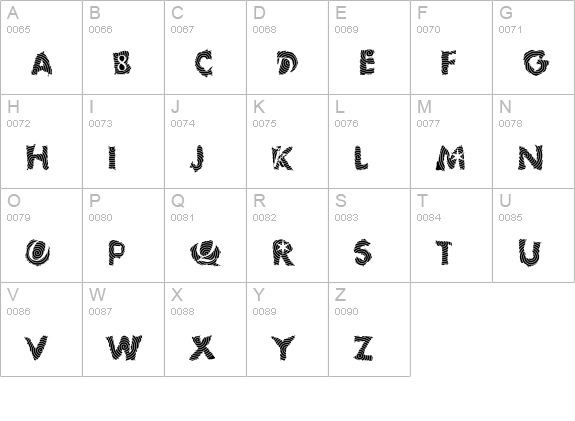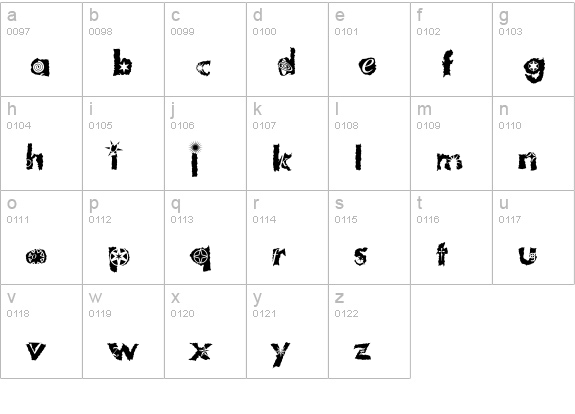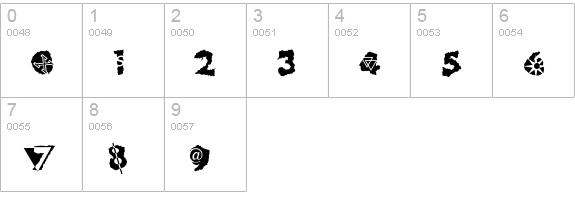
VTTomFool PlumLoco Font Details
Introducing VTTomFool PlumLoco, a whimsical and playful font that will bring a touch of fun to your designs. This font is perfect for adding a light-hearted and quirky element to any project, whether it's a logo, branding, invitation, or social media post. With its unique combination of curved lines and exaggerated proportions, VTTomFool PlumLoco exudes a sense of joy and lightheartedness that is sure to captivate your audience. What makes VTTomFool PlumLoco even more appealing is that it is completely free! Yes, you read that right. This delightful font is freely available to download at FontsMarket.com, allowing you to unleash your creativity without any cost. Say goodbye to expensive font licenses and hello to endless possibilities with VTTomFool PlumLoco. Not only does VTTomFool PlumLoco offer a wide range of uppercase and lowercase characters, but it also includes numerals, punctuation marks, and special symbols, ensuring that you have everything you need to create eye-catching designs. The versatility of this font allows it to seamlessly blend into various themes and styles, from children's illustrations to quirky advertisements. With VTTomFool PlumLoco, you can effortlessly add a touch of whimsy to your projects. Its charming and energetic appearance will instantly grab attention and leave a lasting impression. Whether you're designing for personal or commercial use, this font is a fantastic choice for those seeking a free and captivating typeface. So why wait? Head over to FontsMarket.com and download VTTomFool PlumLoco today. Let your imagination run wild and watch as your designs come to life with this delightful font. Don't miss out on the opportunity to add a dash of playfulness to your creations. Embrace the freedom of VTTomFool PlumLoco and let your designs shine!